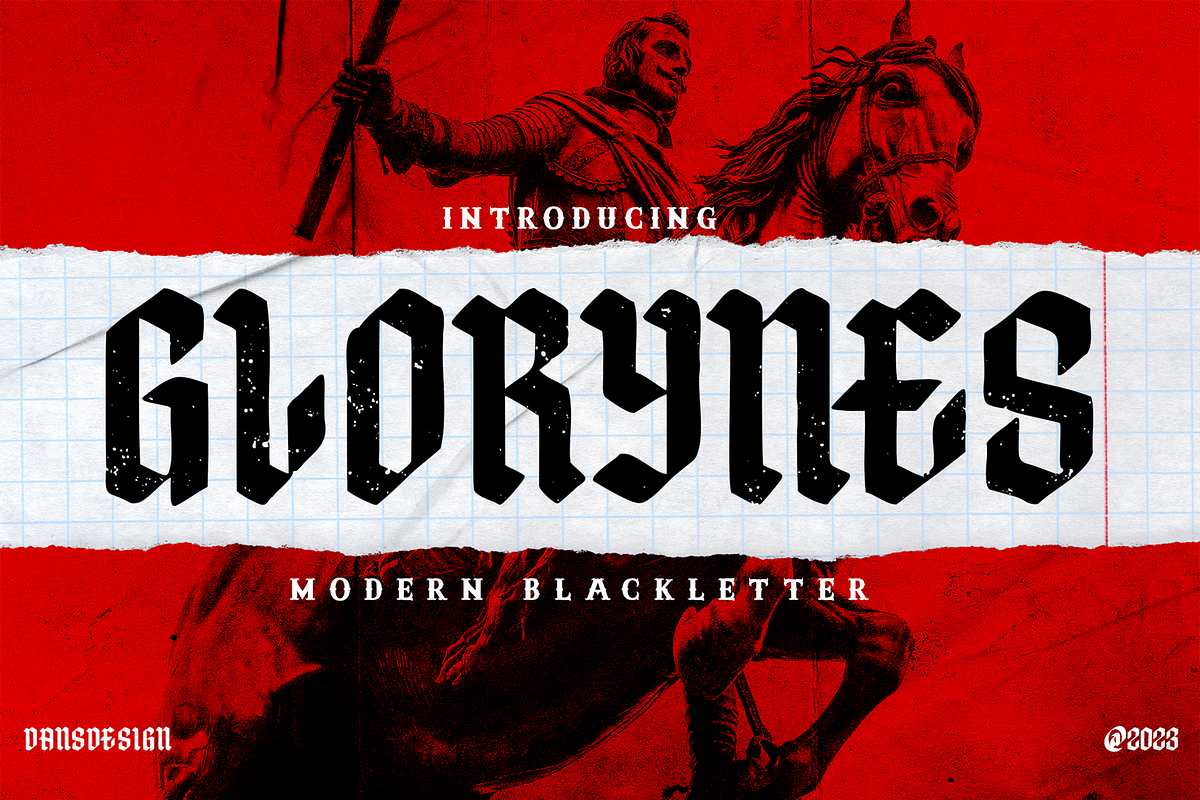
GLORYNES Modern Blackletters Font Free Download
GLORYNES Modern Blackletters Font Free Download is a bold and edgy typeface that fuses traditional blackletter style with modern design elements. Perfect for album covers, tattoo-inspired branding, streetwear designs, and poster art, this font adds a dramatic, gothic flair to your visuals.
With sharp angles, ornamental details, and a contemporary twist, GLORYNES Modern Blackletters Font Free Download delivers power and presence in every letter. Whether you're designing for music, fashion, or a bold branding concept, GLORYNES makes a lasting impression. Test it out in your next creative project to feel its impact—then upgrade to a commercial license when you're ready to unleash it professionally.